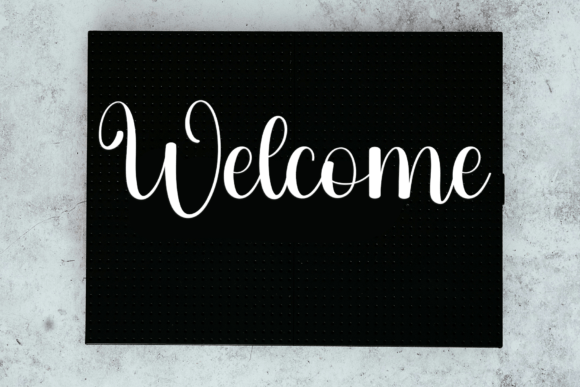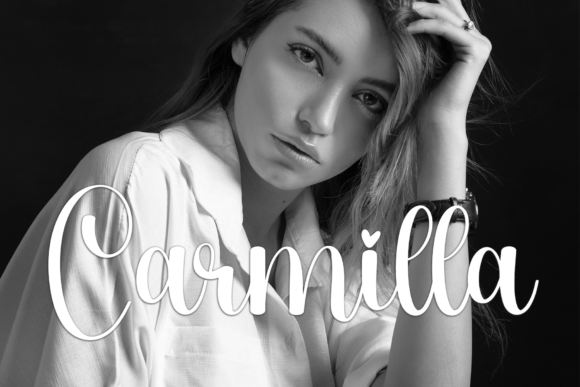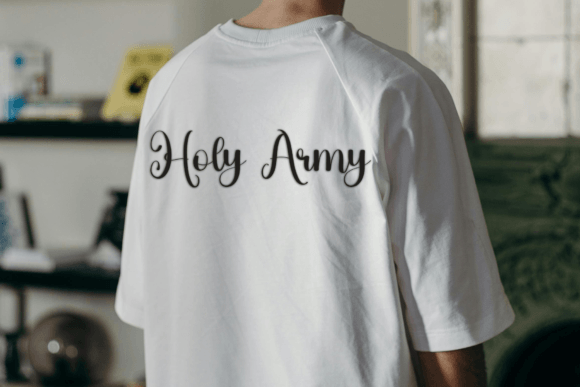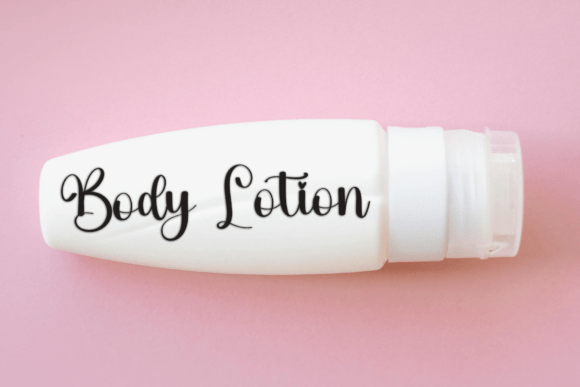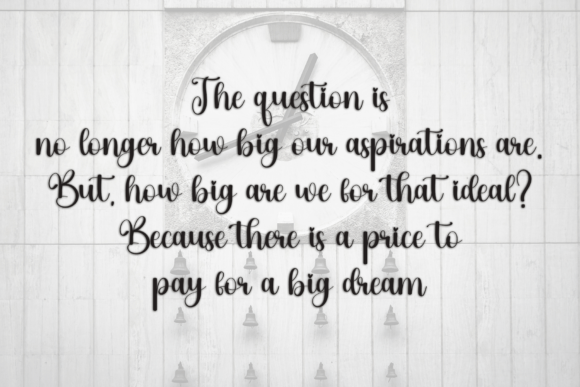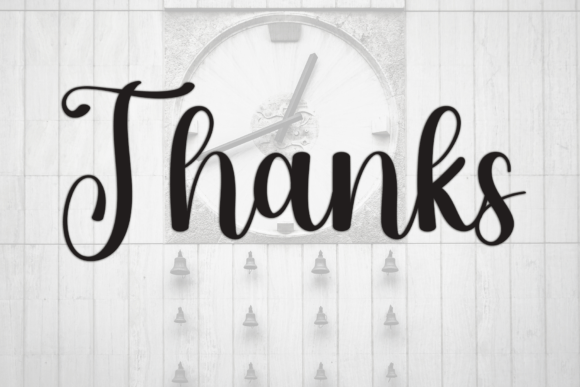
Introduction to Ringtone Font
As a designer, there’s nothing quite like the feeling of creating a project that brings a smile to someone’s face. For me, that moment came when I stumbled upon the perfect font for a holiday card design. The Ringtone Font immediately caught my eye with its festive and happy vibe, transporting me straight to a winter wonderland.
But what makes the Ringtone Font so special? Not only is it a high-quality design resource, but it’s also perfect for a wide range of creative projects, from greeting cards to gift labels. And the best part? It’s available for a free download, making it a transparent and accessible choice for designers of all levels.
Key Features of Ringtone Font
- Unique, high-quality design: Ringtone Font offers a distinctive and creative approach to typography, perfect for any design project.
- Transparent background: The font features a transparent background, allowing for easy customization and integration with various design elements.
- High-resolution design: The font is designed at a high resolution, making it suitable for use in large-scale designs, such as billboards and posters.
- Perfect for creative projects: Ringtone Font is ideal for designers working on creative projects, including graphic design, digital art, and UI/UX design.
Honest Review: Ringtone Font
As a designer, I’m always on the lookout for high-quality design resources to elevate my creative projects. I recently stumbled upon the Ringtone Font, and I must say it’s been a game-changer.
The Ringtone Font is a free download that’s perfect for anyone looking to add a unique touch to their designs. The font’s sleek and modern design makes it ideal for use on transparent backgrounds, allowing your graphics to truly pop.
Here are some of the things I like about the Ringtone Font: ✨
- Its modern design makes it perfect for trendy projects
- The transparent background option allows for seamless integration
However, there are a few limitations to keep in mind: ⚠️
- The font may not be suitable for more traditional or conservative designs
- The free version may not include all the glyphs you need
Overall, I’m thoroughly impressed with the Ringtone Font. It’s a fantastic design resource that’s sure to add a touch of sophistication to any project.
Ringtone Font: A Versatile Design Resource
Tips for Getting the Most Out of Ringtone Font
Experiment with different font sizes and styles to create a unique look. Use the font in combination with other design elements to create a cohesive and high-quality design. Consider using the font in a variety of contexts, such as social media graphics, website headers, and print materials.
The Ringtone Font is perfect for a variety of creative projects, including:
- Social media graphics and animations
- Website headers and footers
- Print materials, such as business cards and brochures
Yes, the Ringtone Font is a high-quality design resource that is perfect for designers looking to add a unique touch to their projects. The font features a transparent background, making it easy to customize and integrate into any design.